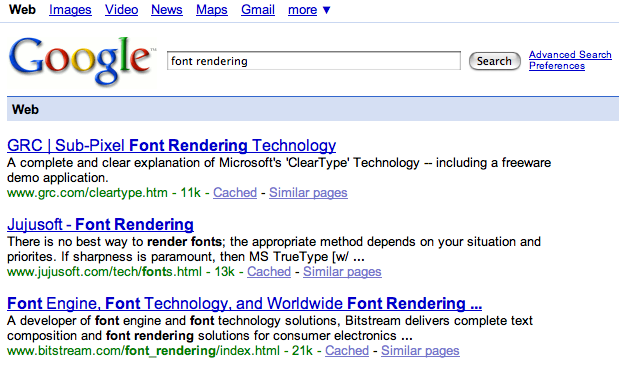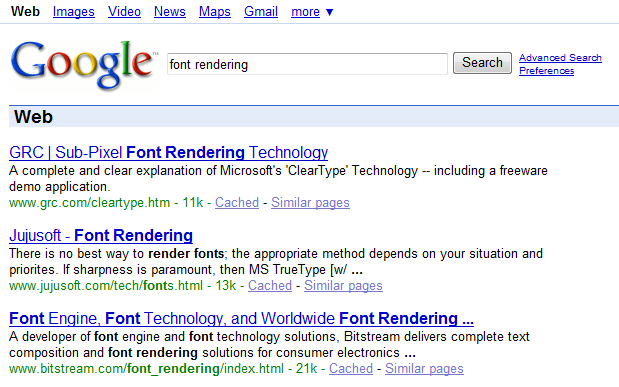
What’s Wrong With Apple’s Font Rendering?
I had read a few complaints that OS X font rendering was a little wonky, even from Joel Spolsky himself:
OS X antialiasing, especially, it seems, with the monospaced fonts, just isn’t as good as Windows ClearType. Apple has some room to improve in this area; the fonts were blurry on the edges.
I didn’t believe it until I downloaded the first beta of Safari 3 for Windows and saw it for myself.
Font rendering in Safari 3 Beta:
Font rendering in Safari 3 beta for Windows
Font rendering in Internet Explorer 7:
Font rendering in IE7
All of these screenshots were taken under Windows Vista. It’s easier to see what’s happening if we zoom in a bit. These images are zoomed 200% with exact per-pixel resizing. Safari on the top, IE7 on the bottom:
Font rendering in Safari, closeup
Font rendering in IE7, closeup
At first I wasn’t even sure if Apple was using ClearType-alike RGB anti-aliasing, but it’s clear from the zoomed image that they are. It looks like they’ve skewed the contrast of the fonts to an absurdly low level. The ClearType Tuner PowerToy allows you to manually adjust the RGB font aliasing contrast level, as I documented in an earlier blog post, but I don’t think it can go as low as Apple has it set.
I am absolutely not trying to start an OS X versus Windows flame war here. I used the quote above for a reason: there really is no single best way to render fonts; results depend on your display, the particular font you’re using, and many other factors. That said, I’m curious why Apple’s default font rendering strategies, to my eye – and to the eyes of at least two other people – are visibly inferior to Microsoft’s on typical LCD displays. This is exactly the kind of graphic designer-ish detail I’d expect Cupertino to get right, so it’s all the more surprising to me that they apparently haven’t.
Update: I have a followup post that explains the font rendering difference. It looks like neither Apple or Microsoft is wrong; it’s a question of whether you respect the pixel grid.